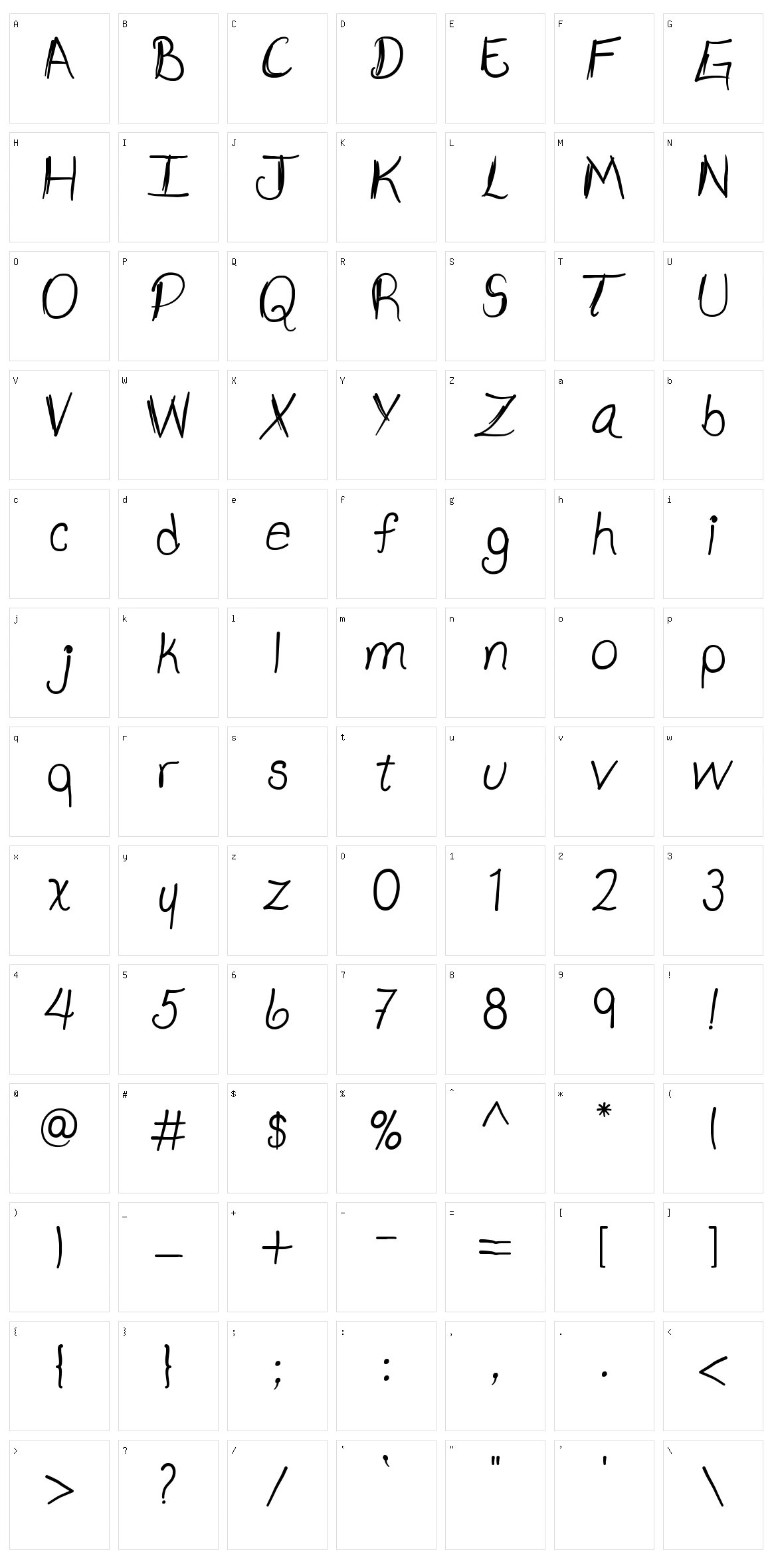
The free font Aszami is carefully designed by Asley Cruz, showcasing a thoughtful balance of creativity and usability and falls under the Script font style. When you download the ZIP file, it contains only 205.93 KB of font files, making it lightweight and quick to download. Please review the license details below to understand permitted usage and distribution rights. If license information is not available, we recommend using this font for personal projects only or contacting the author directly for commercial usage permissions.